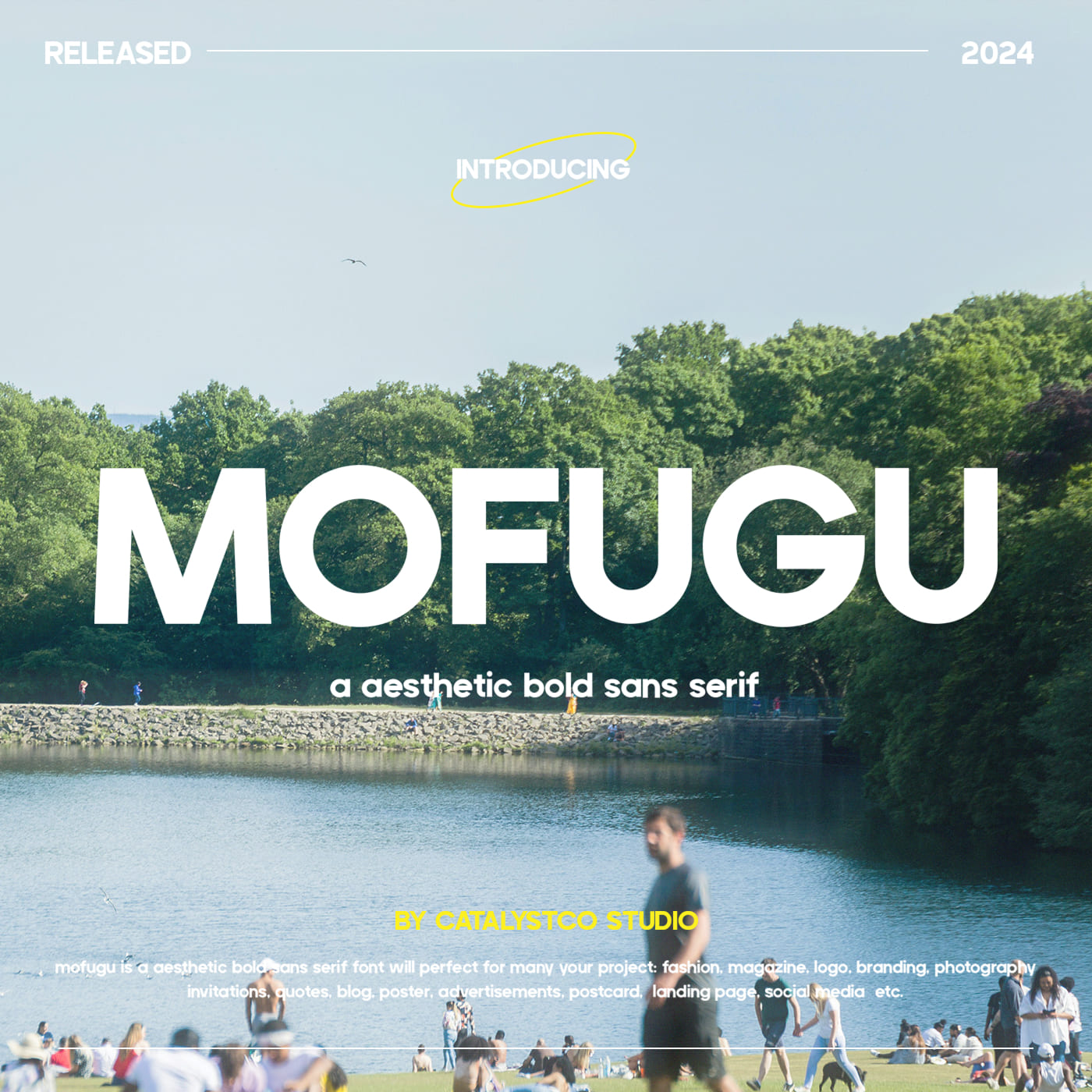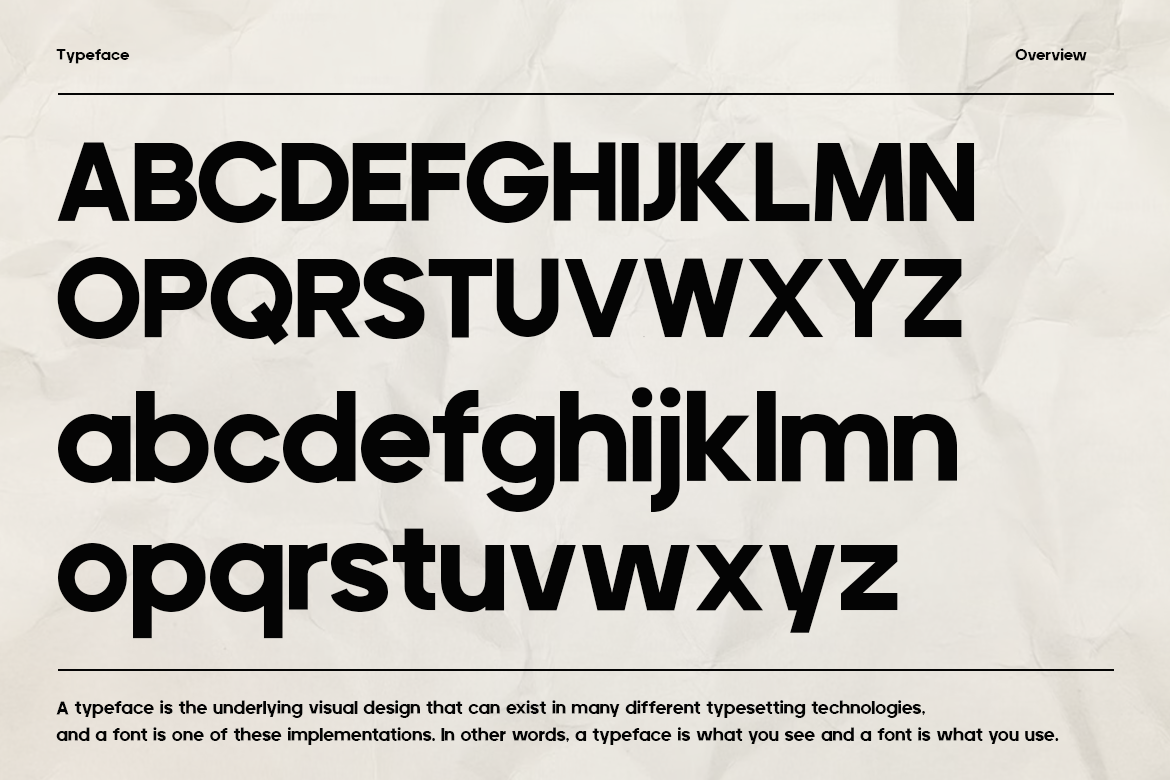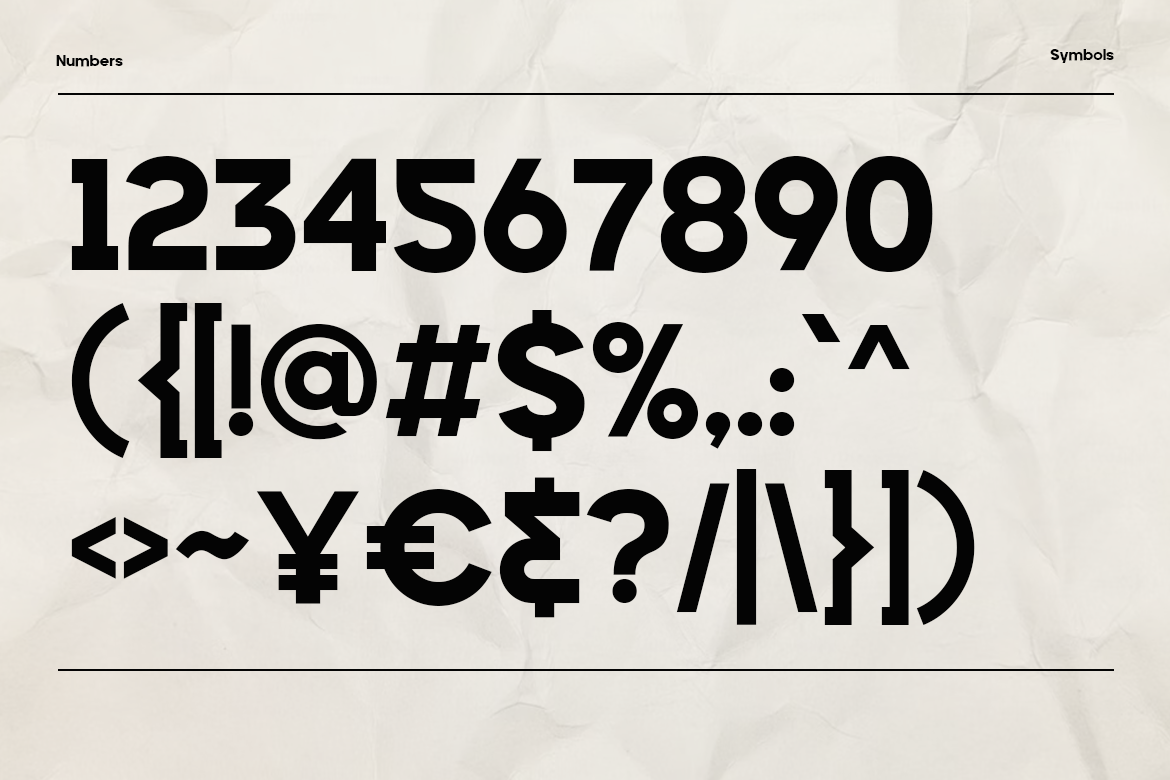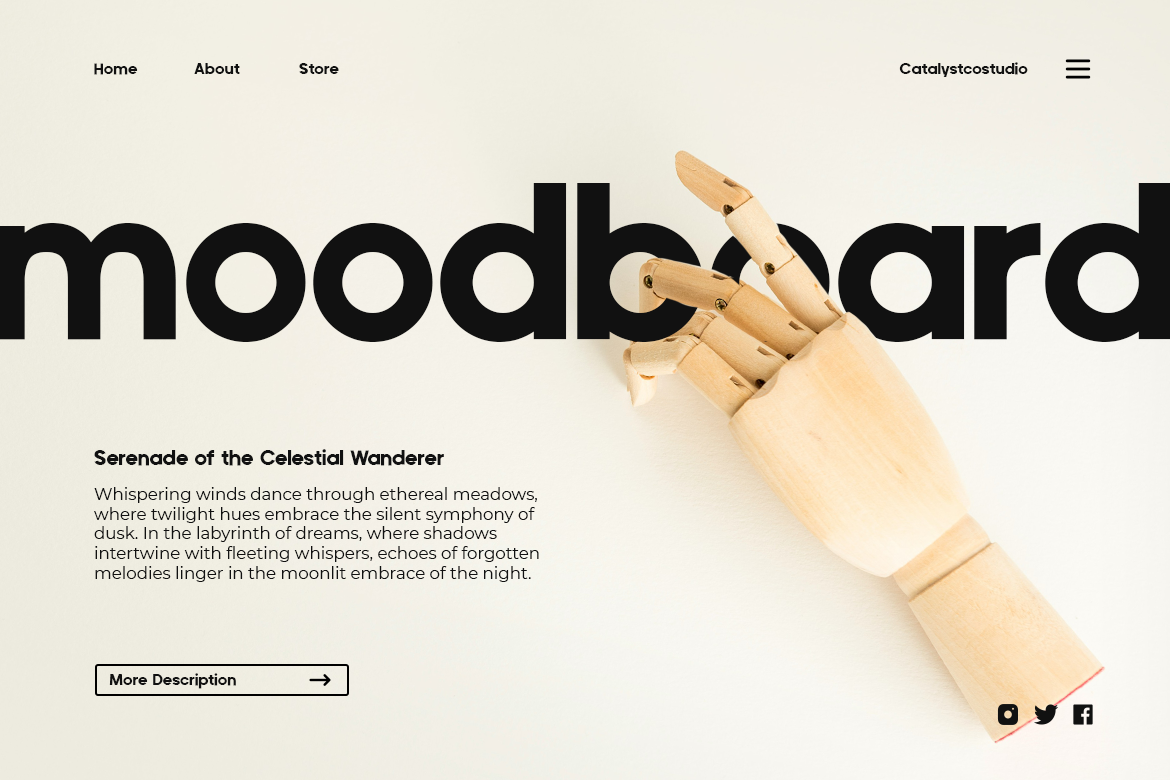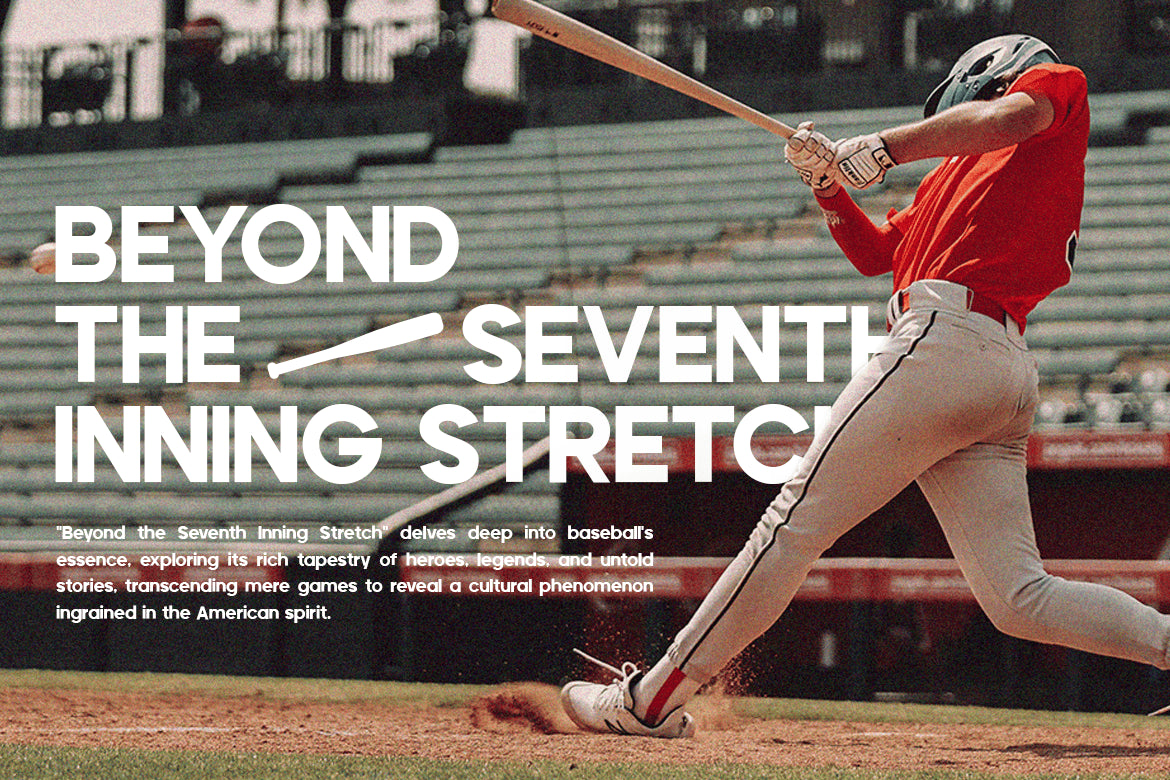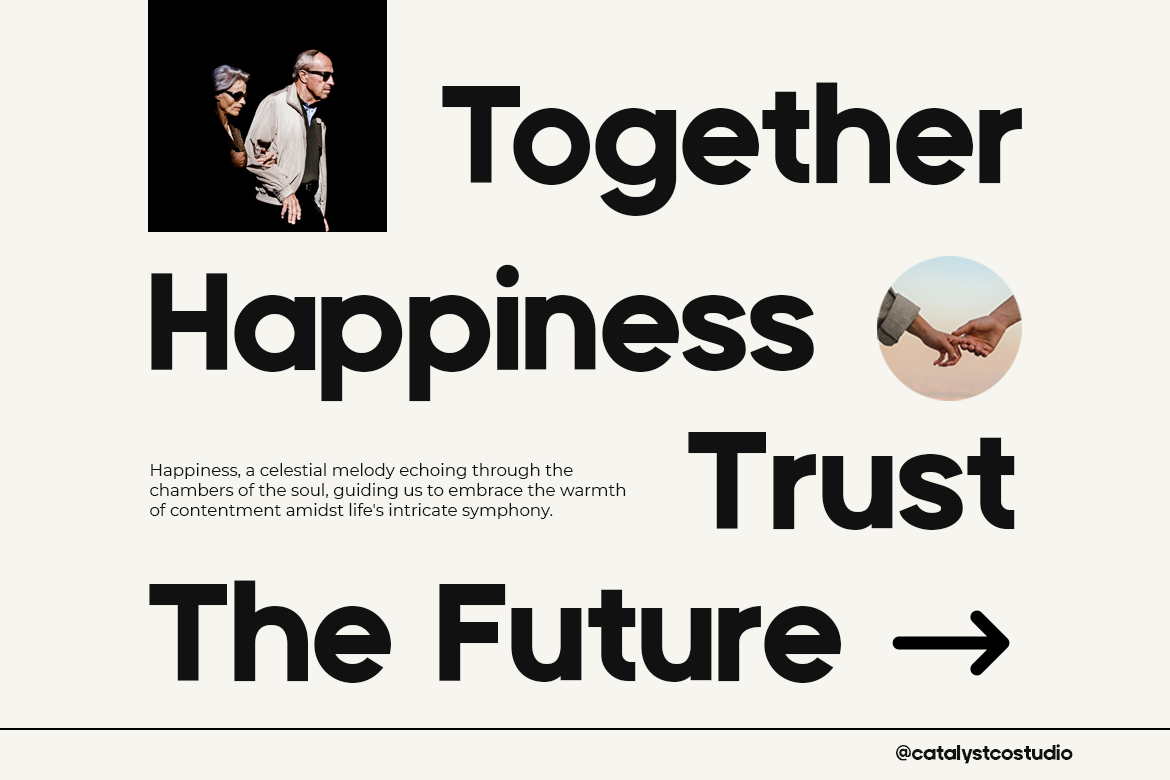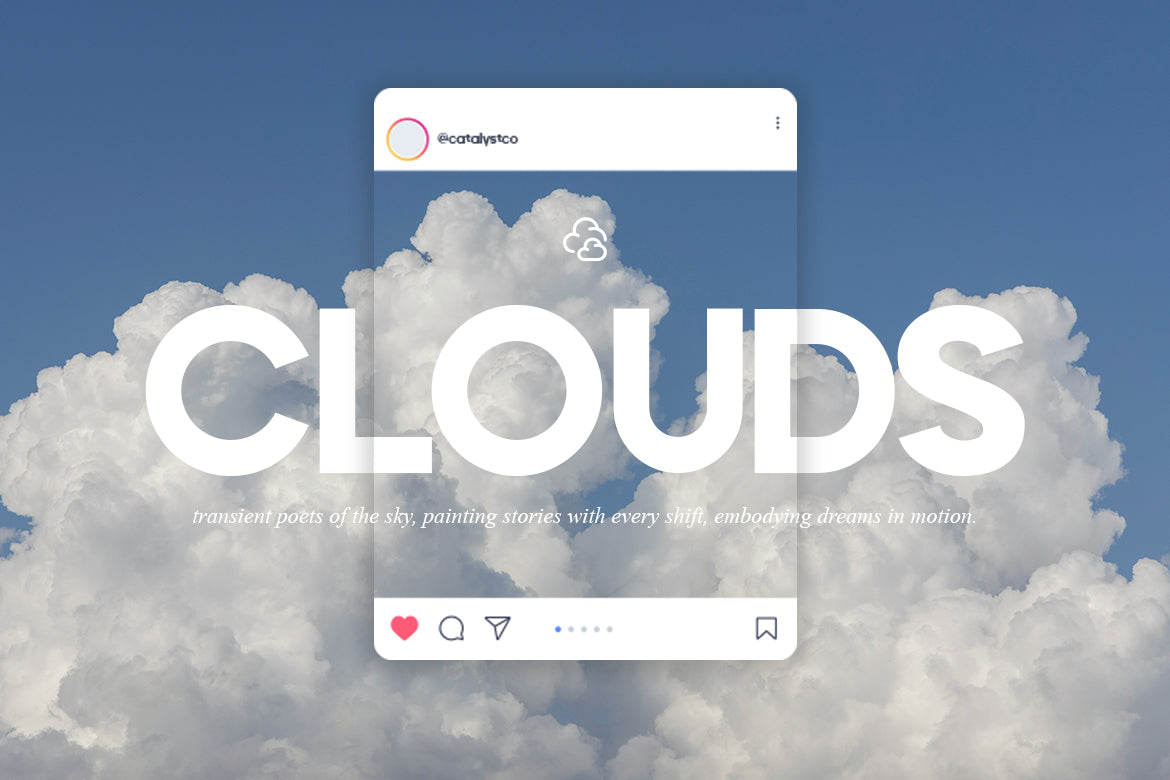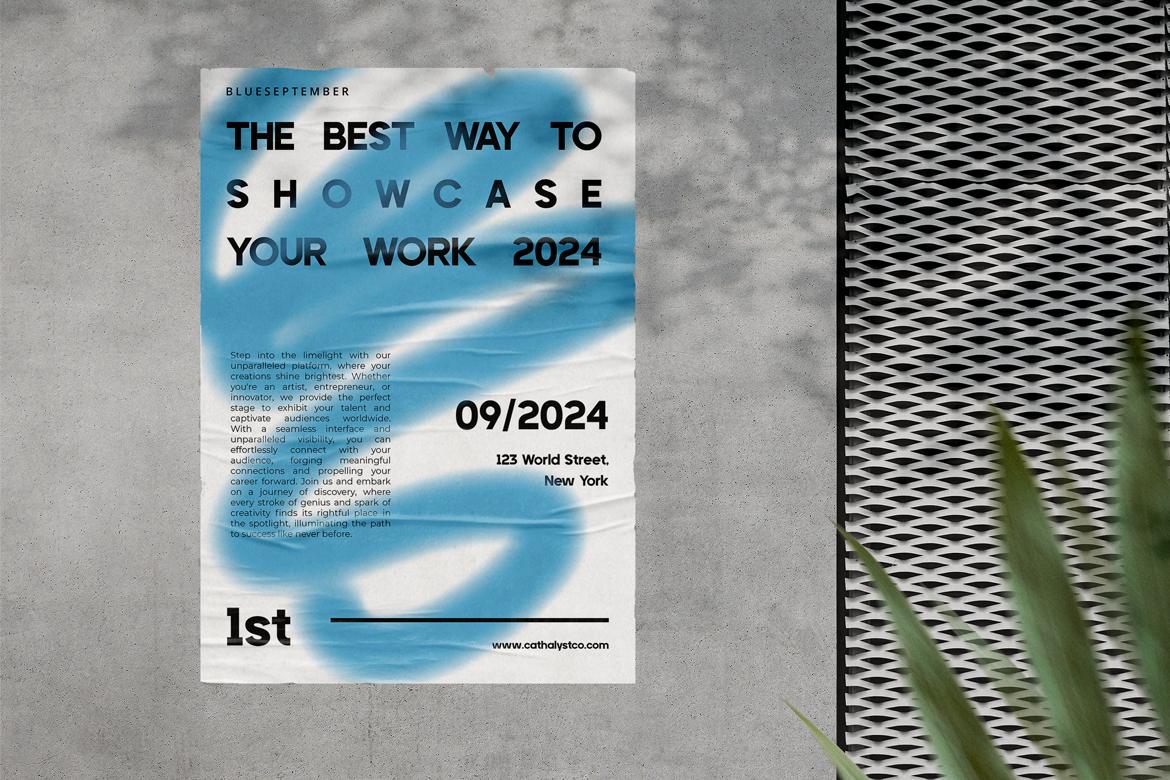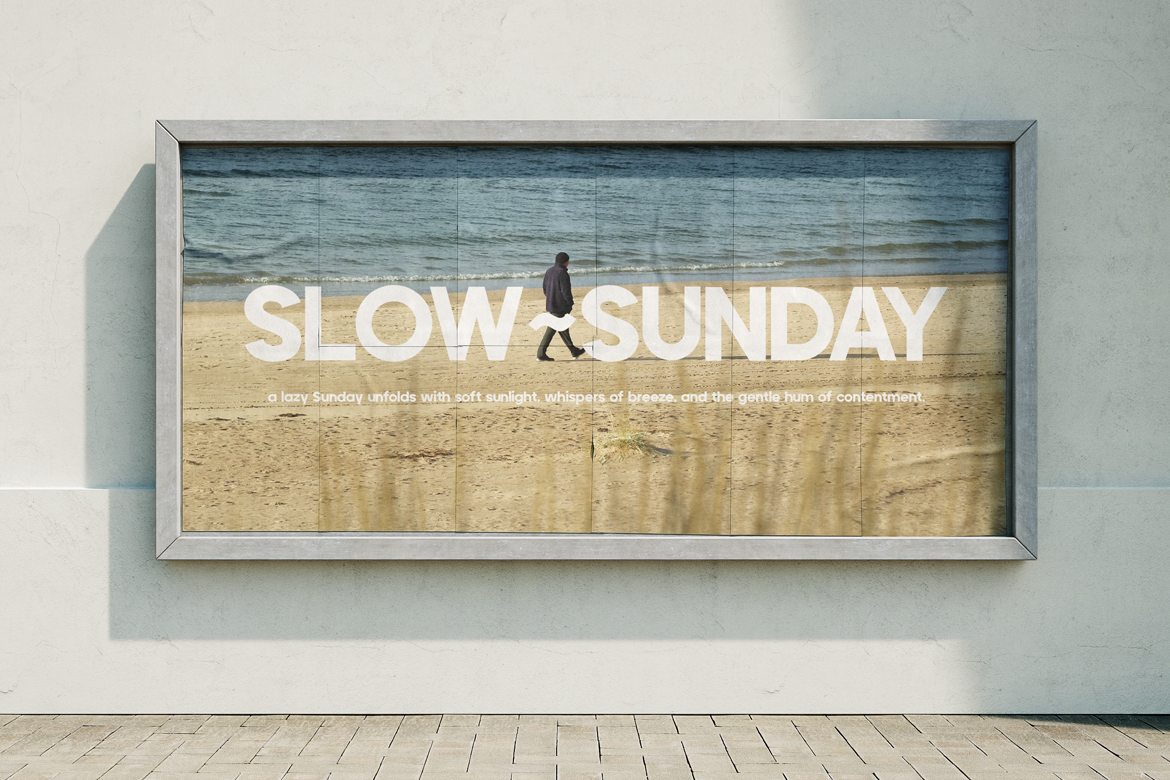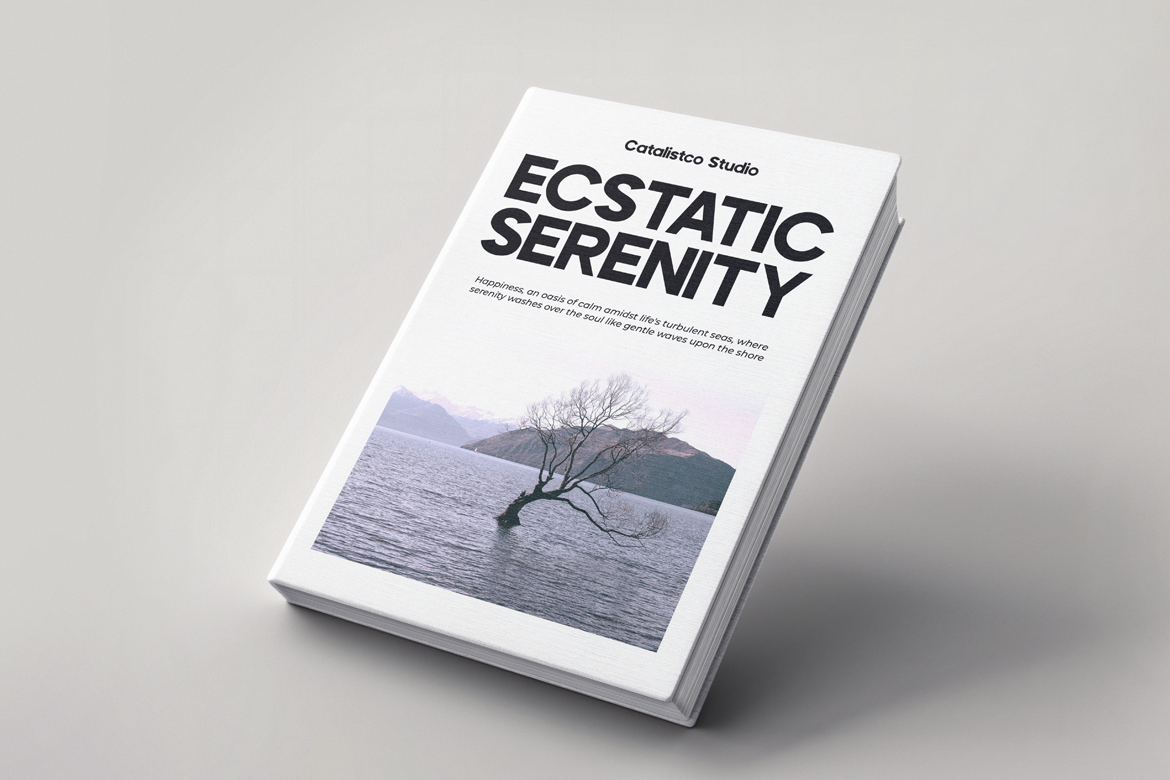
Mofugu Aesthetic Bold Sans Serif Font
Mofugu is a modern bold sans serif typeface featuring clean geometry, smooth curves, and a confident aesthetic ideal for contemporary visual communication. Its strong proportions and minimalist construction create a versatile typographic voice suitable for branding, editorial layouts, social media graphics, and logo design. The bold weight ensures maximum readability and visual impact across both digital and print environments. Crafted as a premium professional typeface, Mofugu brings clarity, modernity, and stylish simplicity to any project. With a complete uppercase and lowercase set, numerals, and punctuation, it provides designers with a reliable and polished sans serif option for headings, taglines, and identity systems.
Mofugu is perfect for branding identity systems, modern logos, editorial layouts, website headers, social media content, lifestyle campaigns, advertising, digital products, packaging, posters, corporate presentations, and any project that requires a clean, bold, and contemporary sans serif typeface.
Mofugu is a bold sans serif typeface with clean geometry and minimalist construction, including uppercase and lowercase letters, numerals, punctuation, ligatures, and alternates. It is available in TTF, OTF, and WOFF formats.